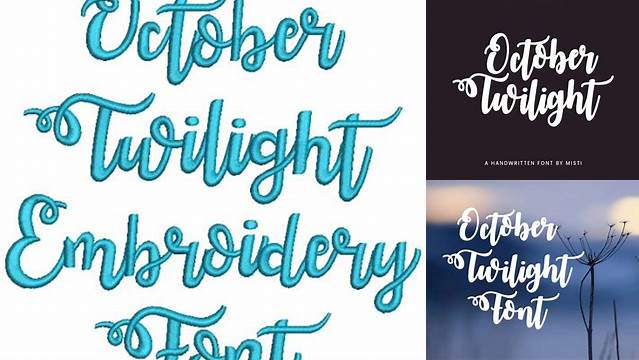
October Twilight: Free Fonts To Enchant Your Designs
Hey everyone! Ready to spice up your designs with a touch of magic? Today, we're diving headfirst into the enchanting world of free fonts, specifically those that capture the essence of October Twilight. Think cozy autumn vibes, spooky elegance, and a dash of vintage charm. We'll explore various styles, from sleek modern fonts to whimsical handwritten scripts, perfect for everything from website headers to spooky season flyers. So, grab your pumpkin spice latte, get comfy, and let's get started on this font-tastic journey! Let's find the perfect free font to add a unique feel to your projects. Are you ready to start?
1. Unveiling the Allure of October-Themed Fonts
Alright, guys, first things first: why October-themed fonts? Well, think about the vibes, yeah? October is all about the transition – the leaves changing colors, the air getting crisp, and that magical twilight feeling. And what better way to capture that atmosphere than with a font that speaks to it? A well-chosen font can instantly set the mood. Imagine a flyer for a Halloween party with a super-sleek, modern font. Hmm, might not quite hit the mark, right? But slap on a font with a bit of a spooky flair, and bam! Instant atmosphere. It's all about creating a visual connection that resonates with your audience. The right font can evoke feelings of nostalgia, excitement, or even a touch of mystery. It is the same as designing. The font tells a story before anyone even reads the words. Whether you are creating social media graphics, designing invitations, or crafting a website, the right font can make all the difference. When you are thinking about the perfect font, consider factors such as readability, the message you are trying to convey, and the overall design aesthetic. With all this in mind, we will look at how we can use fonts that will make your design stand out even more.
2. Exploring the Best Free Fonts for Autumnal Designs
Now, let's get to the good stuff: the fonts themselves! When we are talking about October Twilight, what kind of fonts come to mind? Think about it. It’s a time of year filled with warmth, mystery, and a touch of spookiness. So we need fonts that reflect those elements. First up, let’s look at some classic fonts that can be used for autumn. If you want to capture that cozy fall feeling, you might want to consider fonts that are inspired by nature or have a vintage vibe. Think of fonts that mimic handwritten scripts or fonts with a touch of serifs. Some fonts have a charming, slightly imperfect look that works well for this.
For a more modern take on autumn, there are tons of clean, minimalist fonts that evoke sophistication. You can also play with a bit of mystery. Fonts with a touch of elegance, like slightly condensed serif fonts, can be super cool. It is all about that balance. On the other hand, if you want to get into a more spooky mood, there are a lot of fonts that are inspired by classic horror movies. These fonts usually feature elements such as sharp edges, irregular letterforms, and a distressed look.
To make things easier, here are some font categories to consider. Think of fonts with a warm, inviting feel. These are usually softer, rounded fonts that can work well for headings and short text. For headings, think about script fonts that mimic elegant handwriting, which can give your designs a touch of sophistication. And finally, there is the display font. The best part about the display fonts is that they are fun and creative! You can use those to give your project that wow effect.
First, we have Google Fonts. They offer an amazing selection of open-source fonts that you can use in all your projects. The fonts are super easy to download and install, and they work great on all devices. Plus, since they are open-source, you can use them for commercial projects. Next, there is DaFont. This is a massive font directory with a huge selection of fonts to choose from. However, be sure to always check the license for each font, as some fonts are free for personal use only. Font Squirrel is another great resource. They curate a selection of high-quality, free fonts. A cool feature about Font Squirrel is that they also offer a font identifier. You can upload an image of a font and they will try to identify it for you. Then there is Behance and Dribbble. Both sites are platforms where designers share their work. And finally, don’t forget about Creative Market. While most of the fonts on Creative Market are premium, they do have freebies that you can grab every week. Be sure to check them out! Before we go further, always remember these tips. Double-check the licenses. Always read the license agreement before downloading a font to make sure you can use it the way you want. Take the time to learn about the font license. Some fonts are free for personal use only, while others offer commercial licenses. Also, remember to think about readability and use. Not all fonts are created equally. Some fonts are more readable than others, especially for body text. And lastly, explore and have fun. Experiment with fonts and find the perfect ones for your projects. After all, finding the right fonts is about trial and error.
3.1. Google Fonts: A Vast Collection of Free Options
Google Fonts is a true gem for designers of all levels, offering a vast and diverse collection of free, open-source fonts. The beauty of Google Fonts lies in its simplicity and accessibility. You can easily browse through hundreds of fonts, filter them by category (serif, sans-serif, display, handwriting, etc.), and see live previews of how they would look in your designs. This makes the selection process super easy and enjoyable. The open-source nature of Google Fonts means they are free to use for both personal and commercial projects, making them a perfect option for everything from personal blogs to business websites.
One of the best things about Google Fonts is its excellent readability. Many of the fonts are designed with legibility in mind, making them ideal for body text on websites and other platforms. Also, Google Fonts is incredibly easy to use. You can download the fonts to your computer and install them for use in desktop applications like Adobe Photoshop or Canva. You can also embed the fonts directly into your website code, which can improve your site's loading speed. This integration is simple and gives you complete control over how the fonts appear on your site. With a quick search and a few clicks, you can find the perfect font to suit your project. Plus, Google Fonts is continually updated with new fonts, so there is always something new to discover. So, whether you are a beginner or a seasoned designer, Google Fonts offers something for everyone.